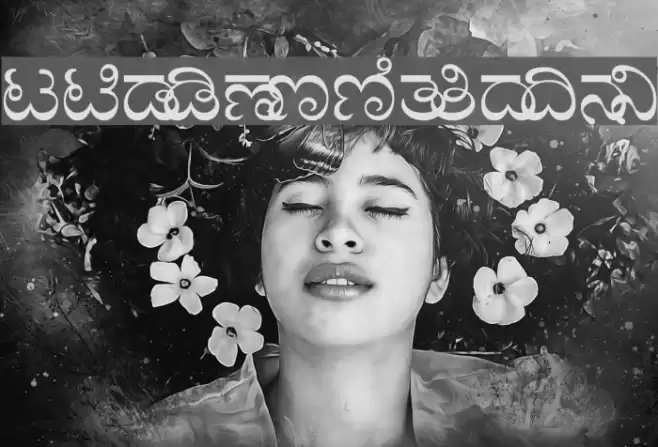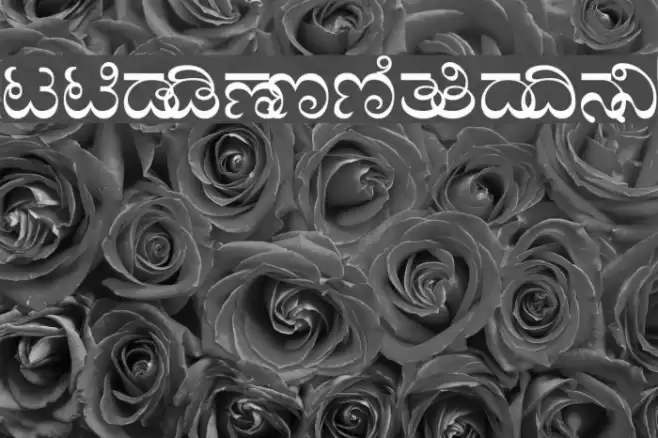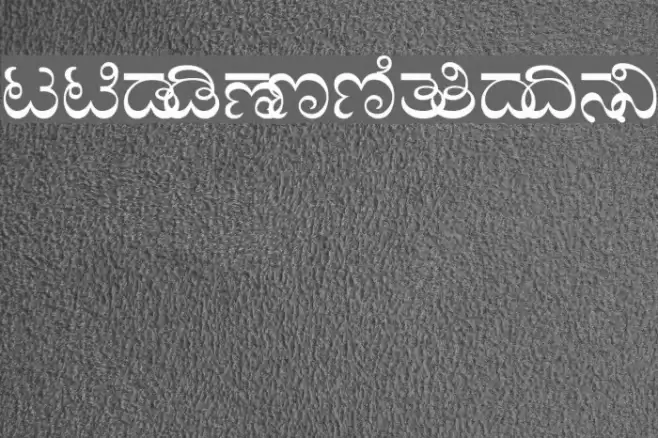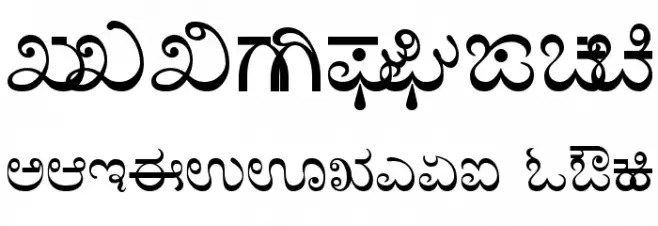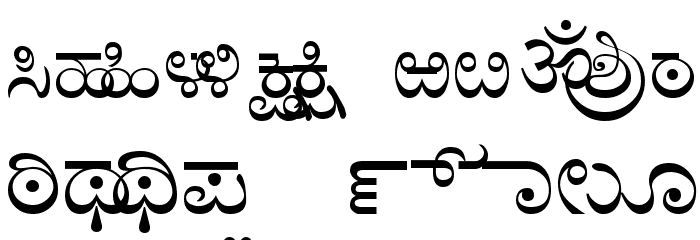
This font features a distinctive and artistic style, characterized by its intricate curves and loops. The script is highly decorative, with each character exhibiting a unique flair that adds to its overall elegance. The font maintains a consistent thickness throughout, providing a balanced and harmonious appearance. Its ornamental nature makes it stand out, with elements that suggest a cultural or traditional influence. The characters are closely spaced, yet each retains its individuality, contributing to a cohesive visual flow. This font is ideal for projects that require a touch of sophistication and cultural richness.
An artistic and decorative script with intricate curves and cultural flair from Uncategorized fonts.
- Proposed Projects: Ideal for cultural event invitations, artistic posters, and decorative signage.
- Character Spacing: Tight
- Use Case: Logos, Invitations, Posters